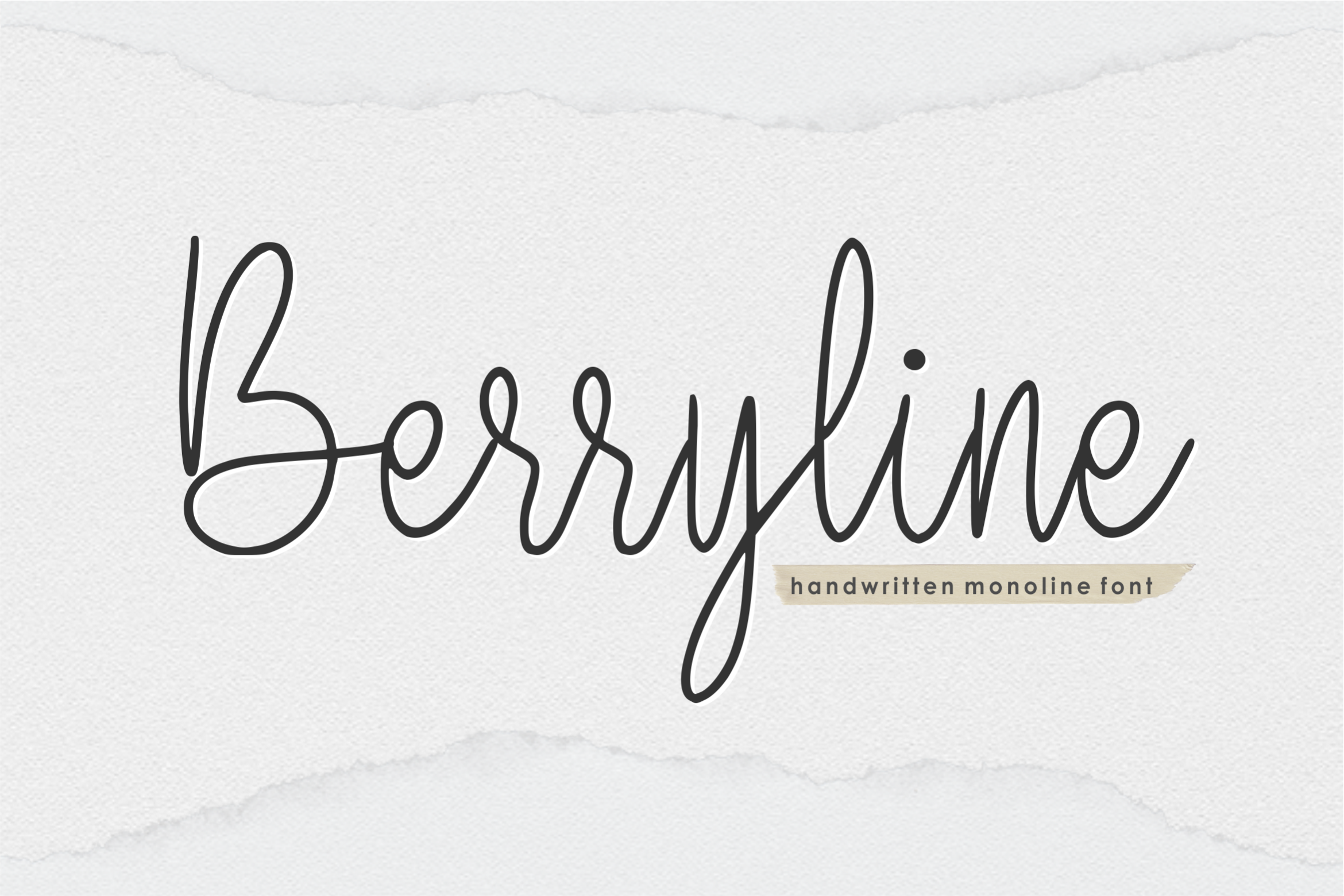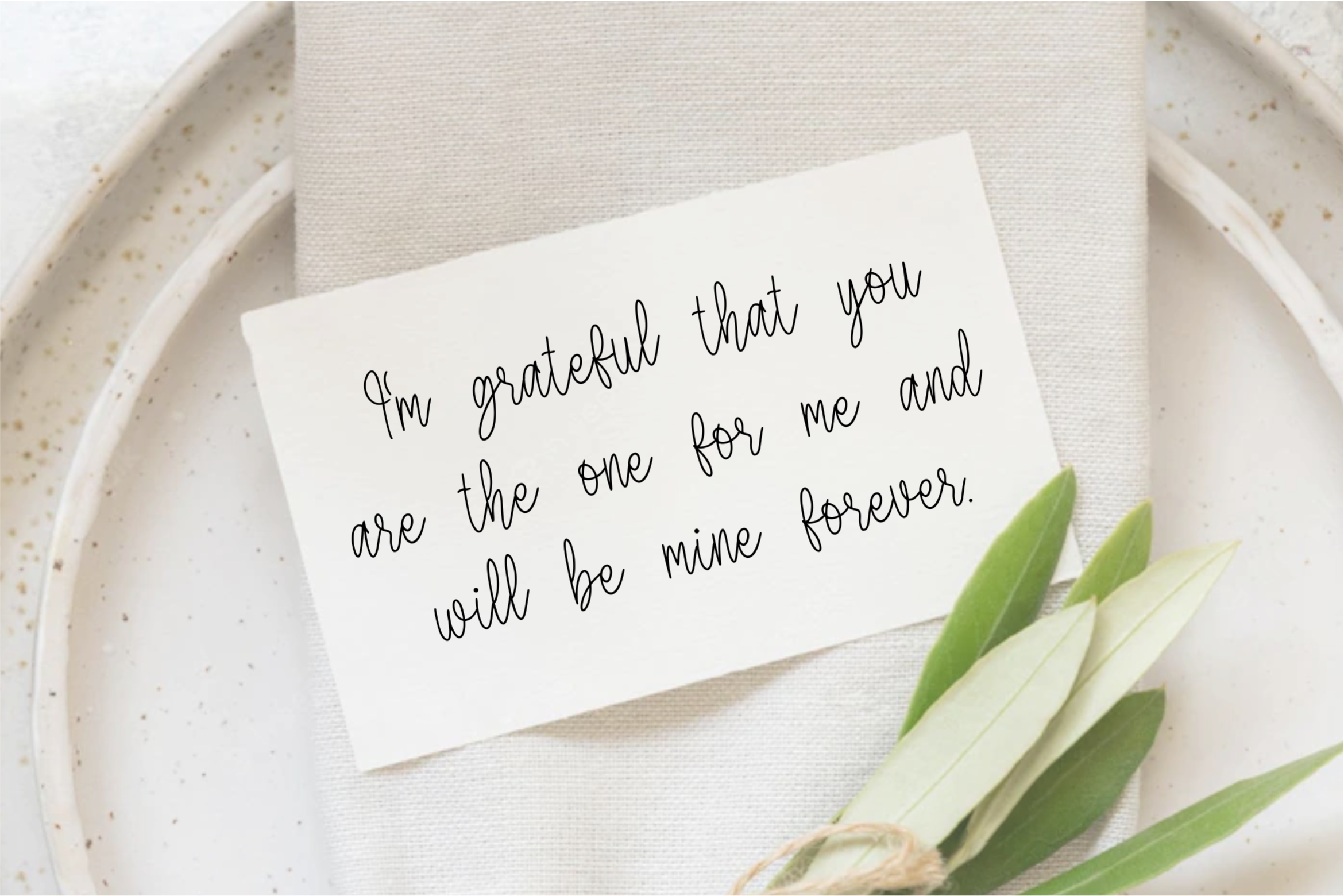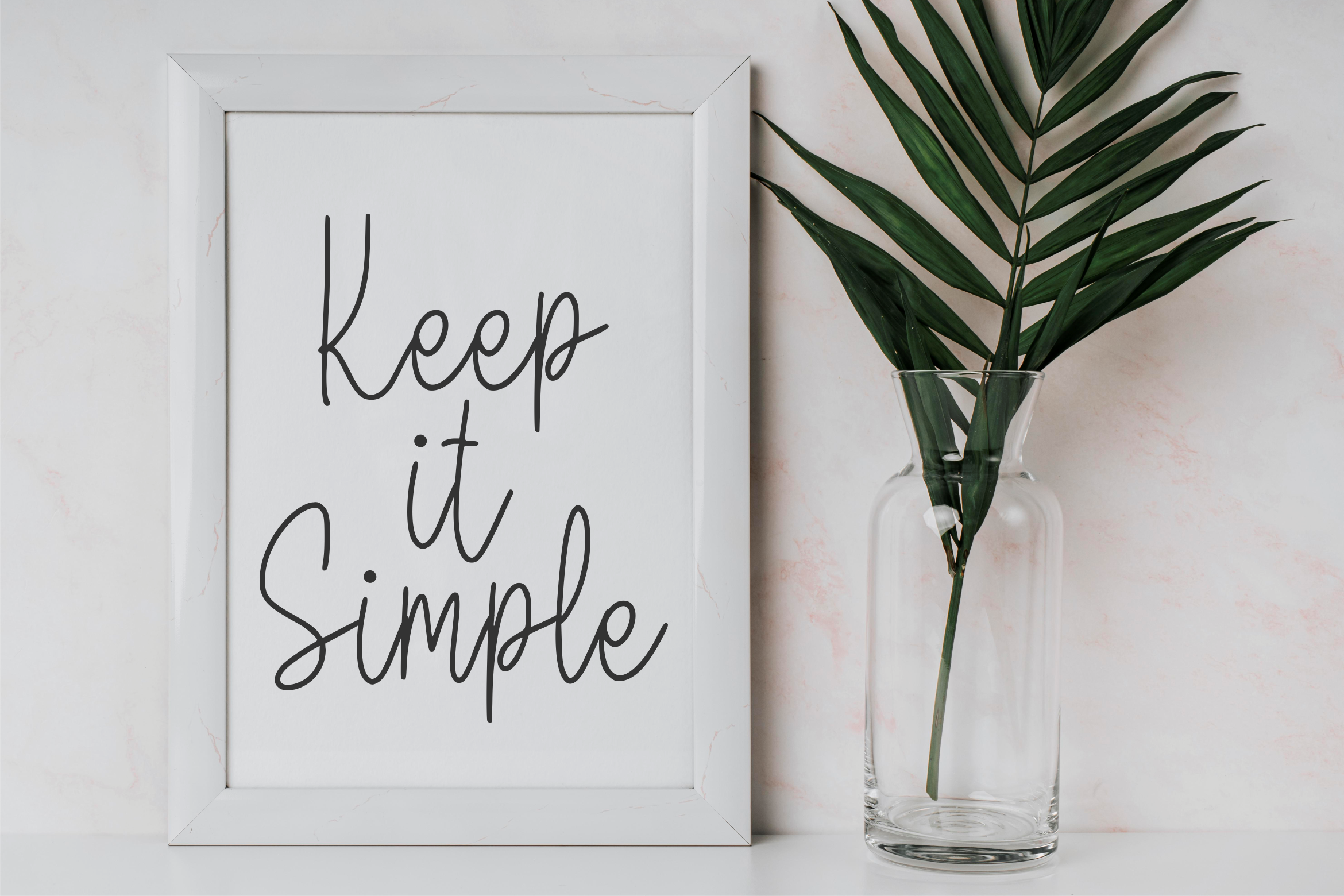
Berryline Font
Berryline Script Font
This is a thin lettered and delicate script font. It is suitable for book texts, documentation, business reports, business correspondence, magazines, newspapers, posters, advertisements, multimedia, and corporate design.